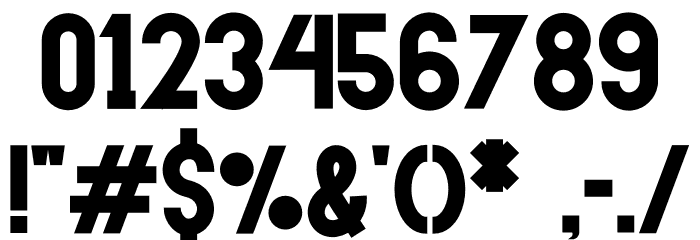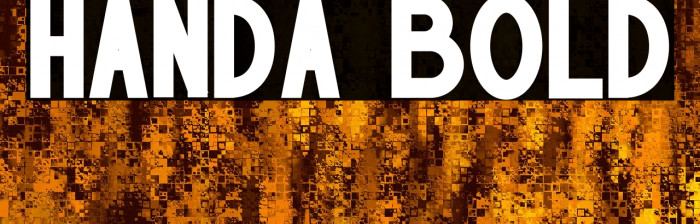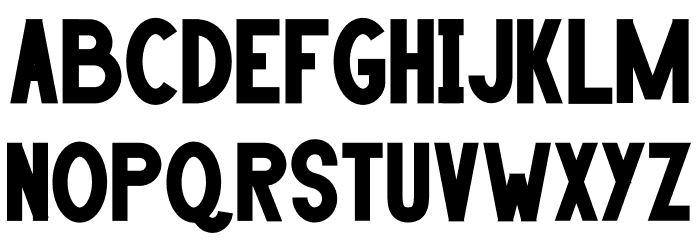
HANDA Bold Font
This font features bold, blocky characters with a strong presence, making it ideal for attention-grabbing headlines and impactful designs. The uppercase letters are uniform in height, with a consistent stroke width that adds to its bold appearance. The numbers and special characters maintain the same boldness, ensuring a cohesive look across all text elements. The overall design is straightforward and modern, with a slight geometric influence that gives it a contemporary edge. Its simplicity and strength make it versatile for various design applications.
A bold, blocky font perfect for impactful headlines and modern designs.
• Proposed Projects: Ideal for posters, advertisements, branding materials, and any project requiring a strong visual impact.
• Category: Sans-Serif
• Overall Style: Modern
• Use Case: Headlines, Logos, Posters